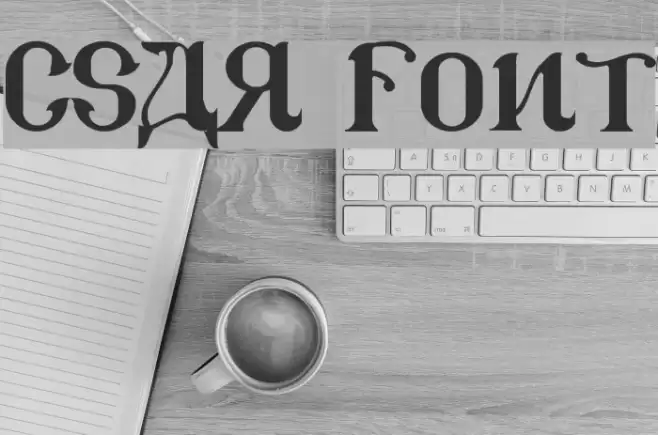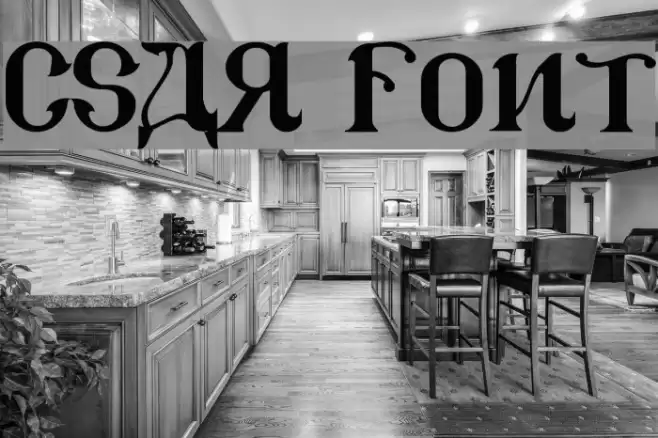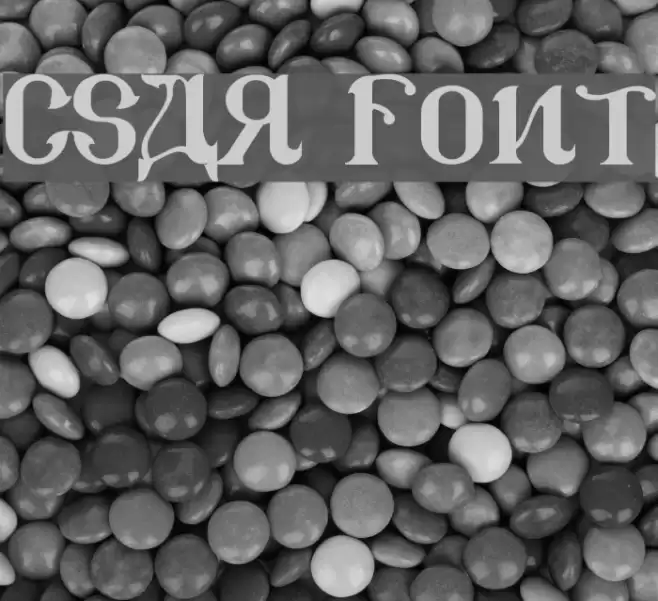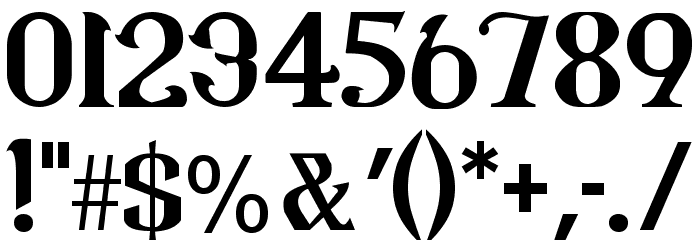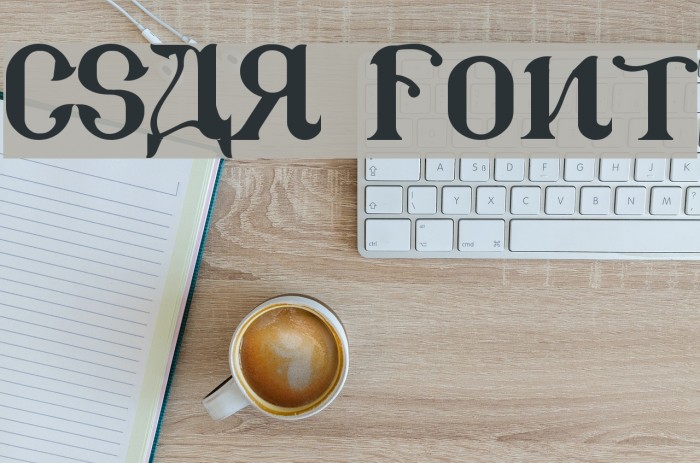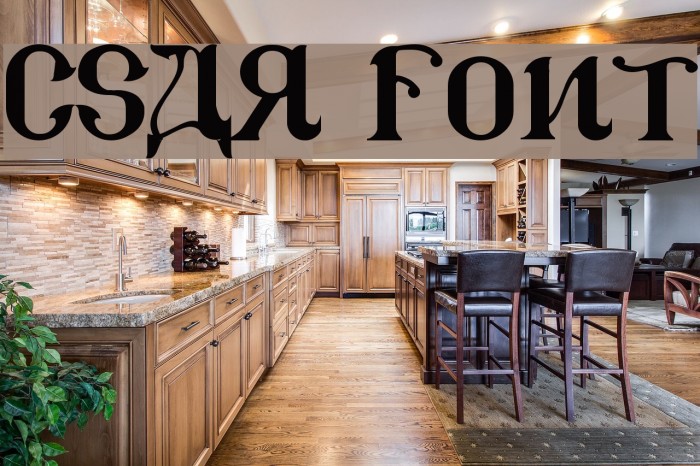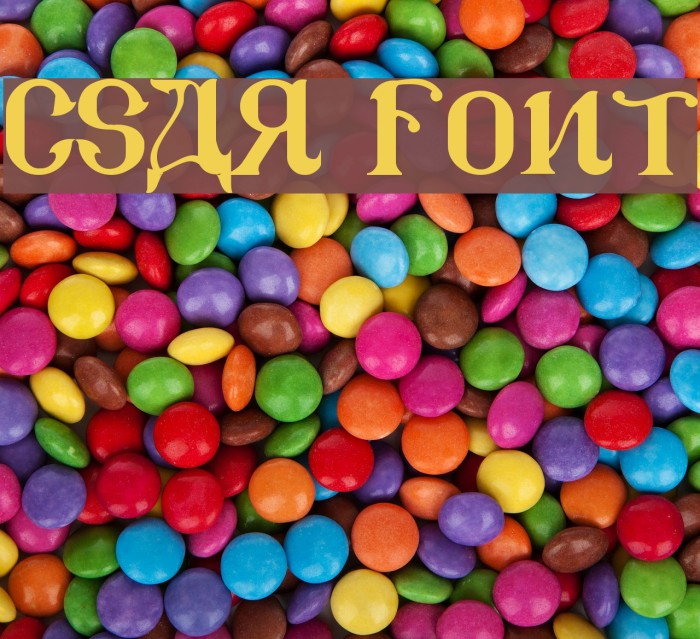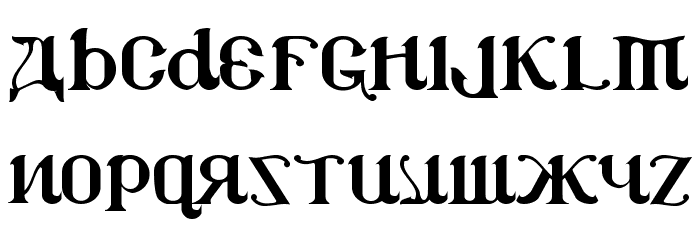
CSAR Font
CSAR Description
This font features a bold and dramatic style with a distinct blackletter influence, characterized by its sharp, angular lines and intricate detailing. The uppercase letters exhibit a strong presence with ornate flourishes, while the lowercase letters maintain a consistent style that complements the uppercase. The numerals are equally bold, with unique curves and angles that add to the overall aesthetic. Special characters are designed with the same attention to detail, ensuring a cohesive look across all glyphs. This font is ideal for projects that require a touch of elegance and historical flair.
A bold, blackletter-inspired font with intricate detailing and dramatic flair from Uncategorized fonts.
- Proposed Projects: Suitable for branding, posters, book covers, and any design needing a historical or gothic touch.
- Overall Style: Vintage
- Use Case: Logos, Headlines, Decorative text